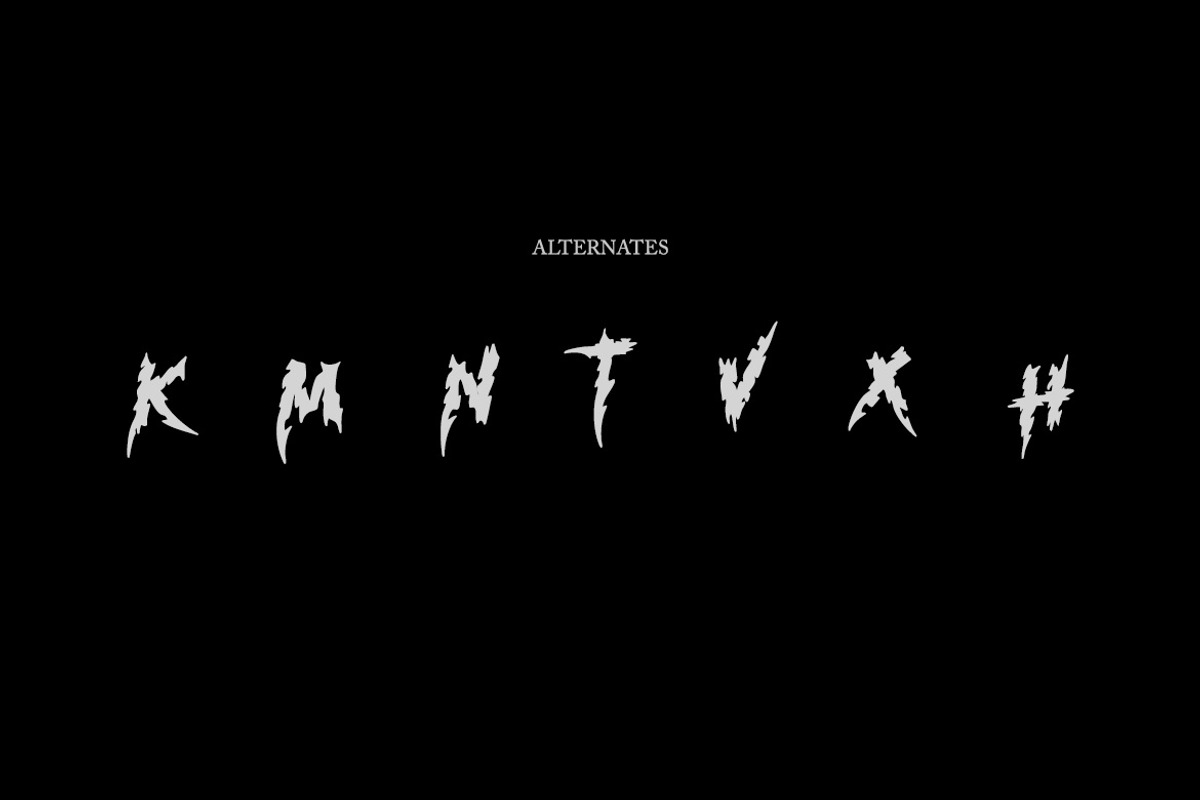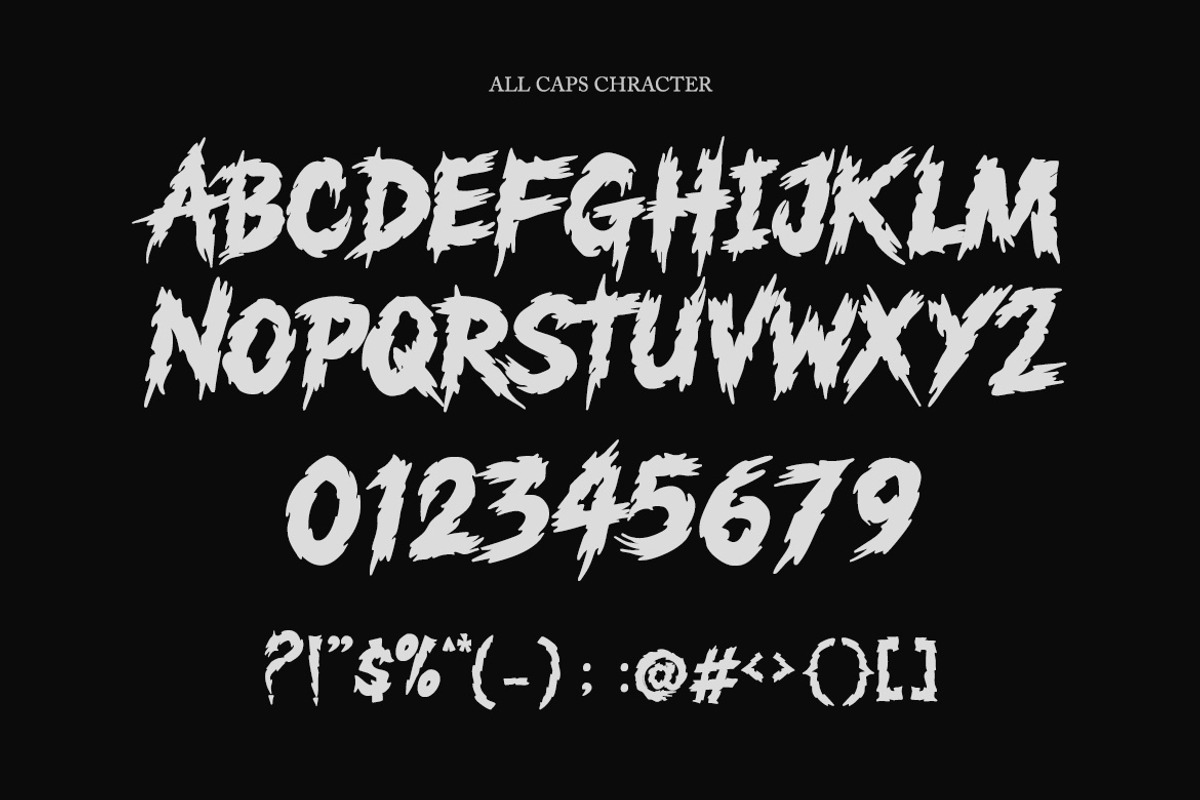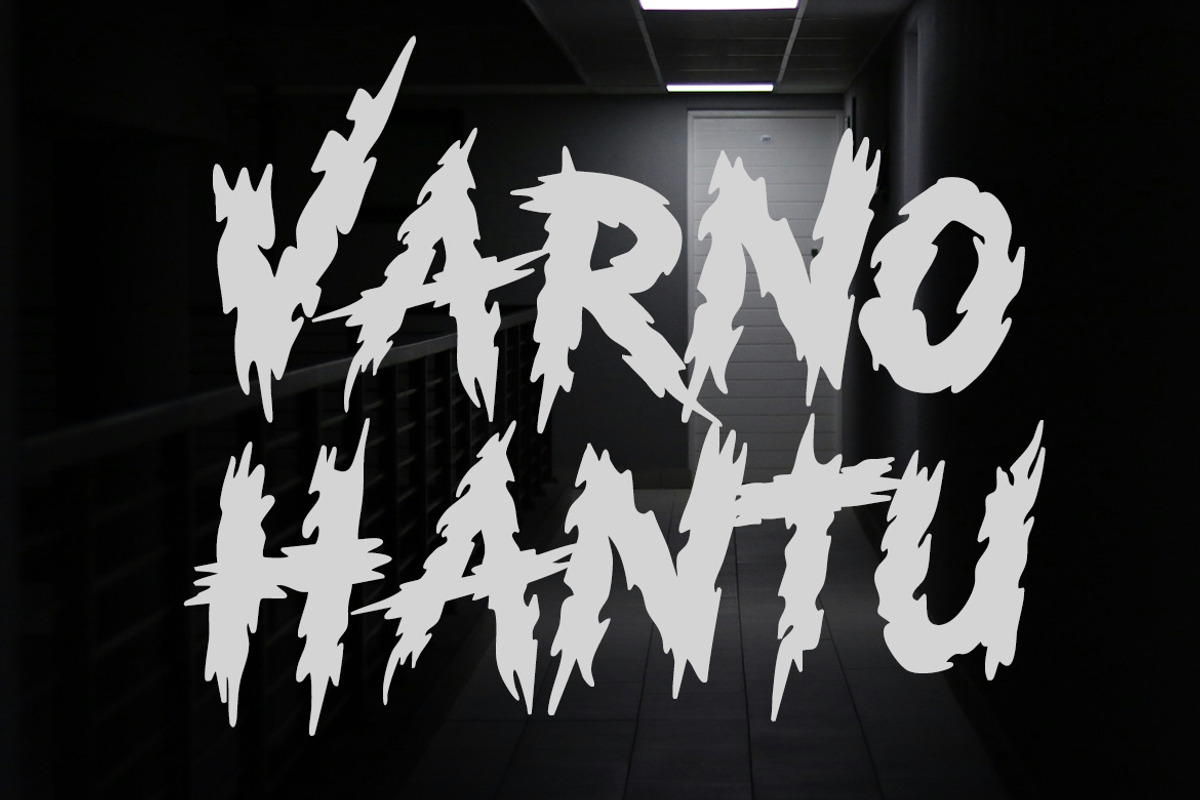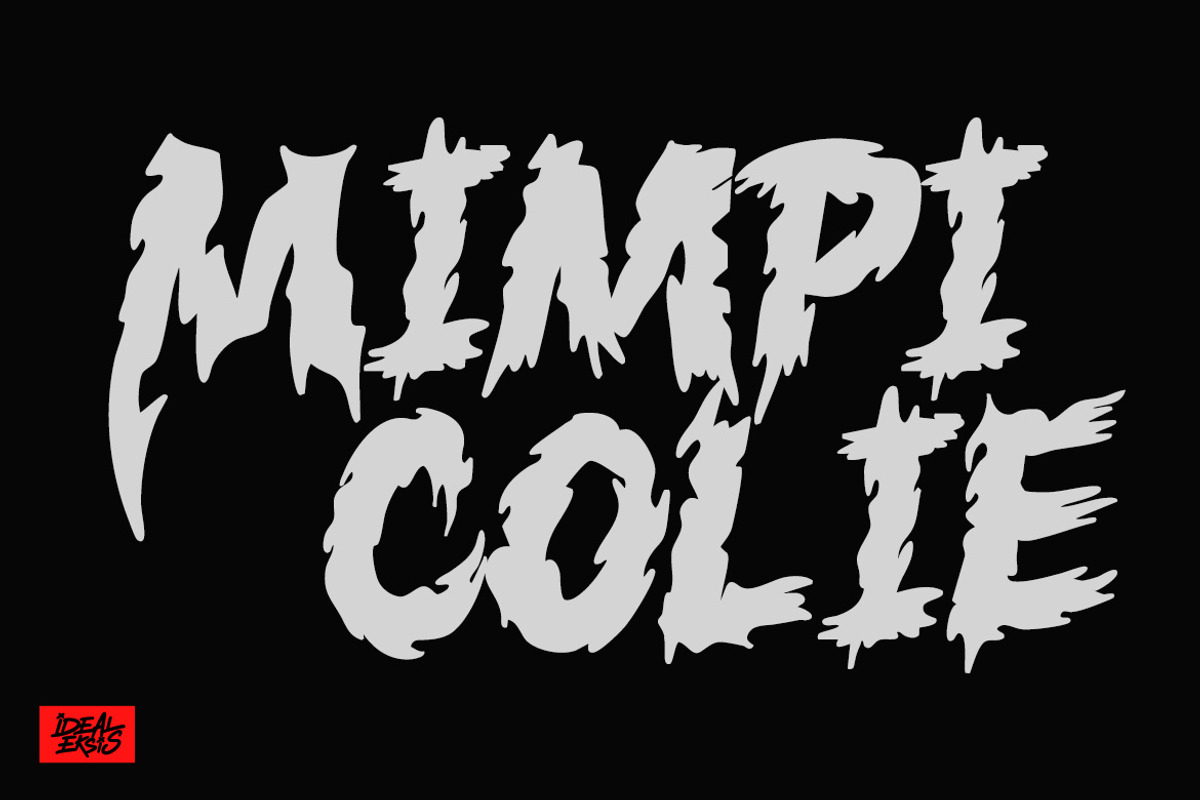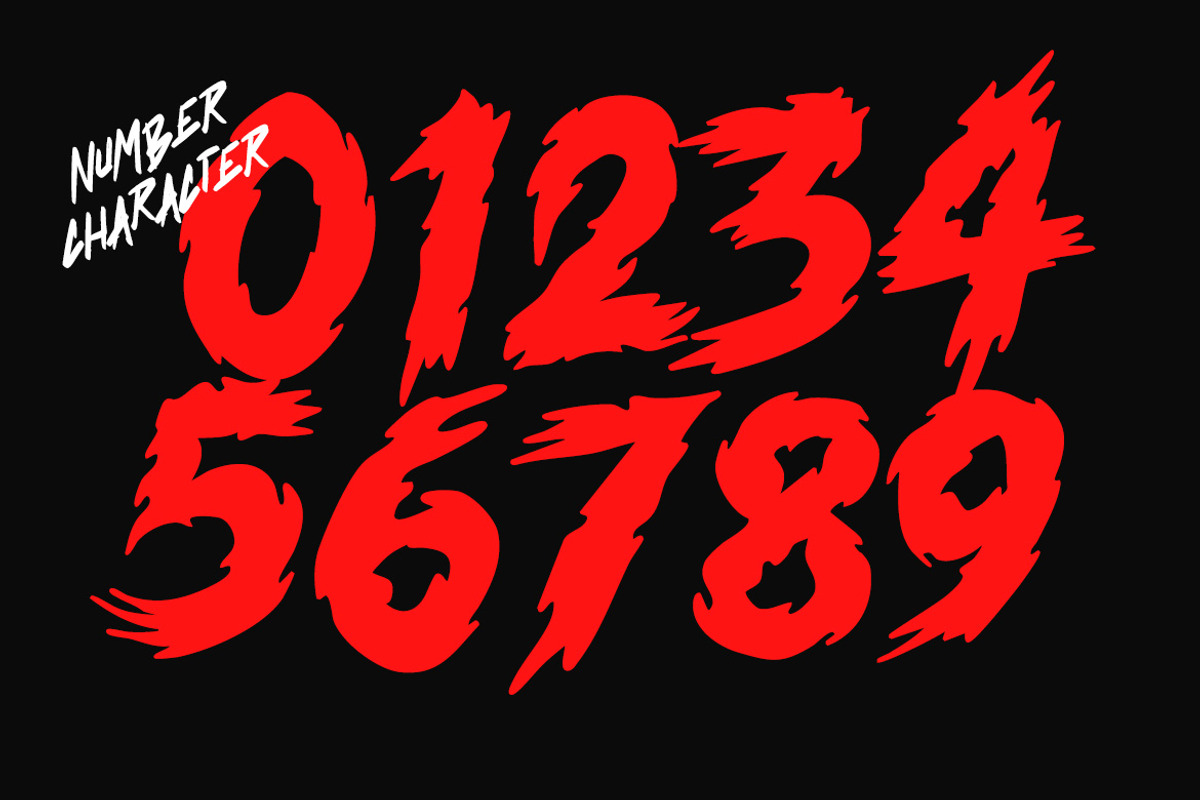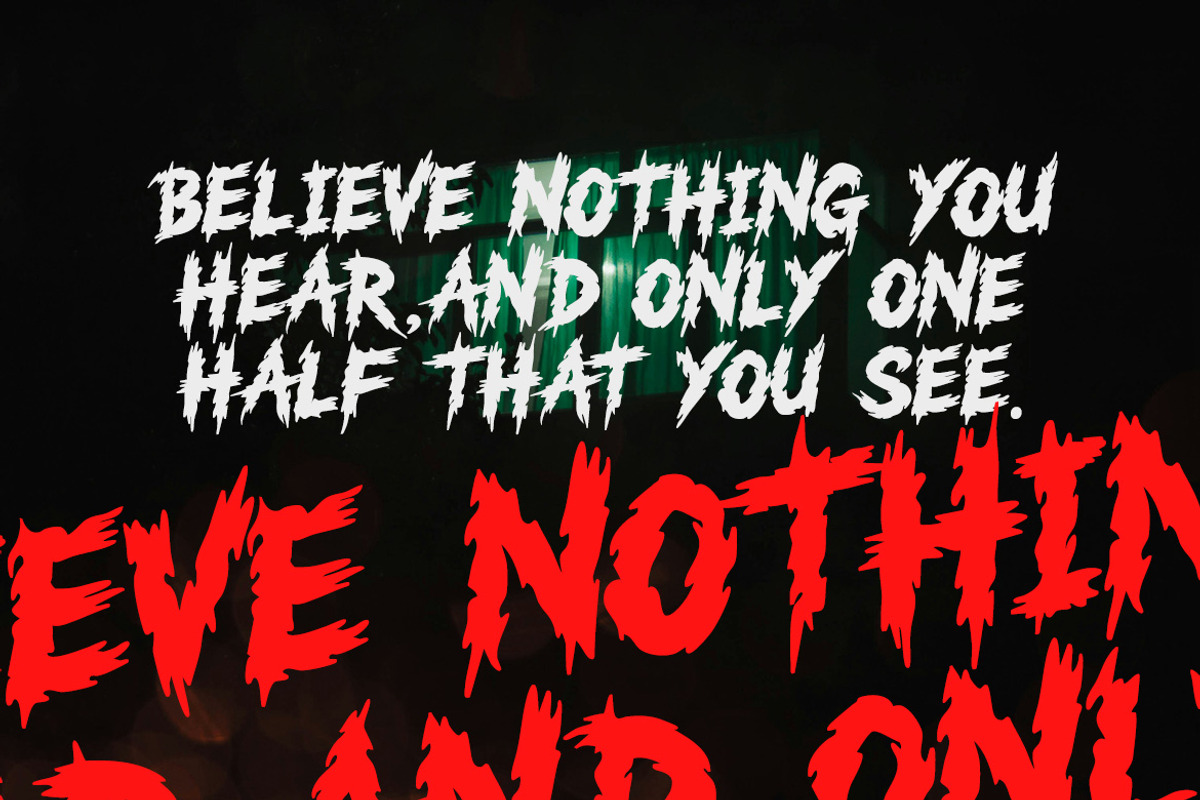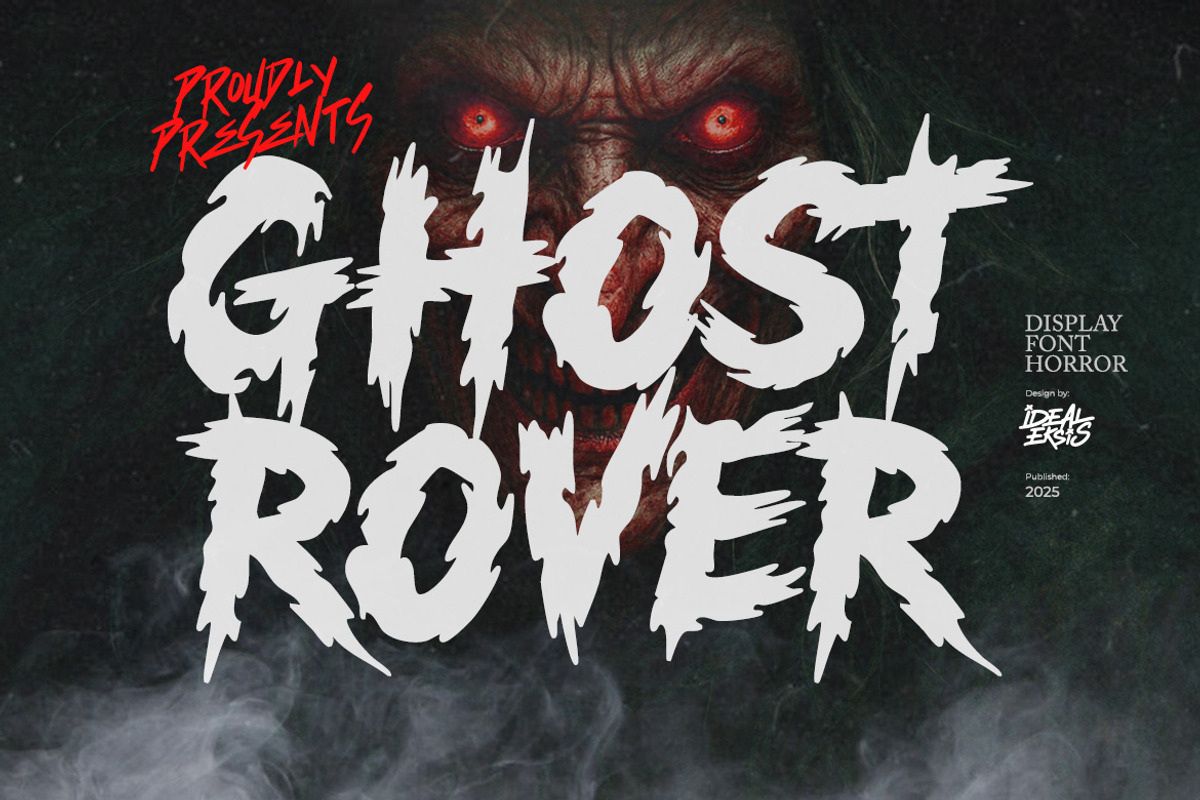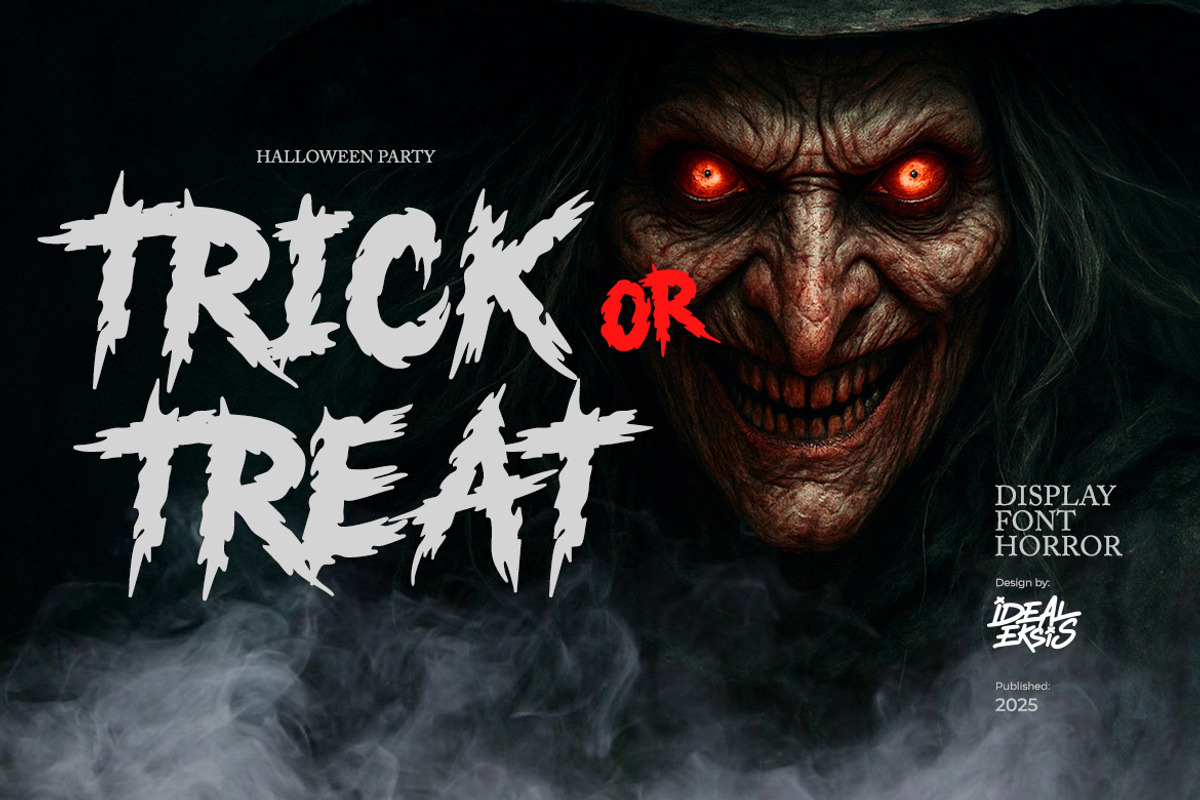
Ghost Rover - Horror Font
Ghost Rover is a terrifying brush horror display with dripping strokes and sinister details. Inspired by haunted visuals and horror movie titles, it’s perfect for Halloween posters, dark branding, thriller covers, scary movie designs, and any project that needs a haunting atmosphere.
Uppercase ( ALL CAPS ) Numerals Punctuation Alternates Multilingual Support